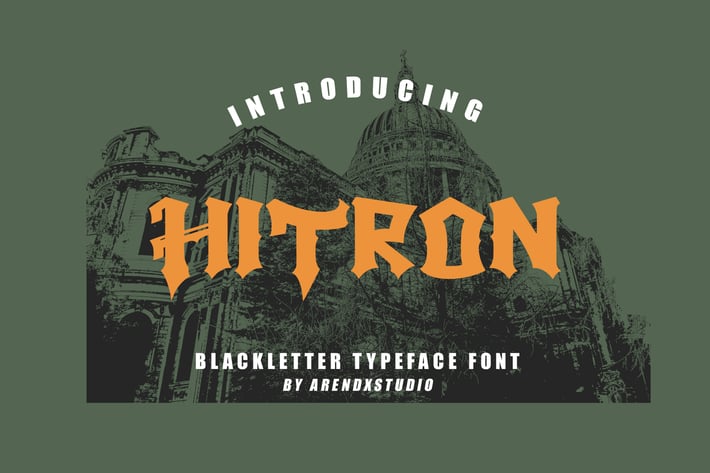
Hitron - Blackletter Typeface
Hitron - Blackletter Typeface with its distinctive character that can be easily implemented in your various design projects . Hitron came with opentype features such stylistic alternates, stylistic sets & ligatures good for logotype, poster, badge, book cover, tshirt design, packaging and any more.
Features : • Character Set A-Z • Numerals & Punctuations (OpenType Standard) • Accents (Multilingual characters) • Ligature